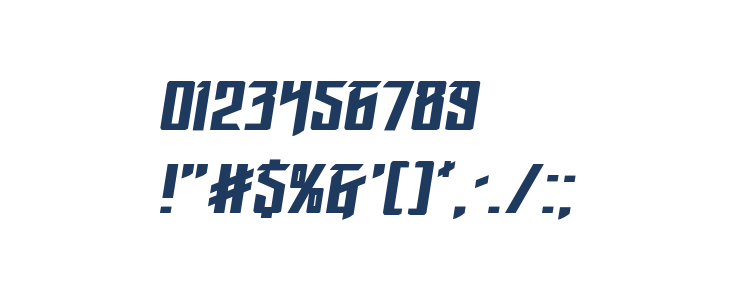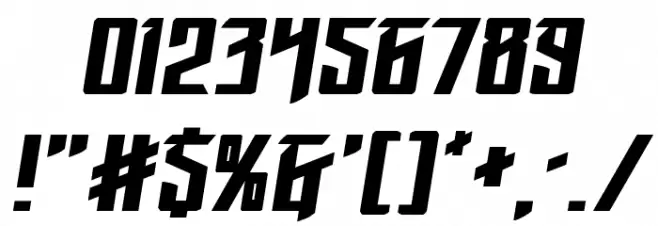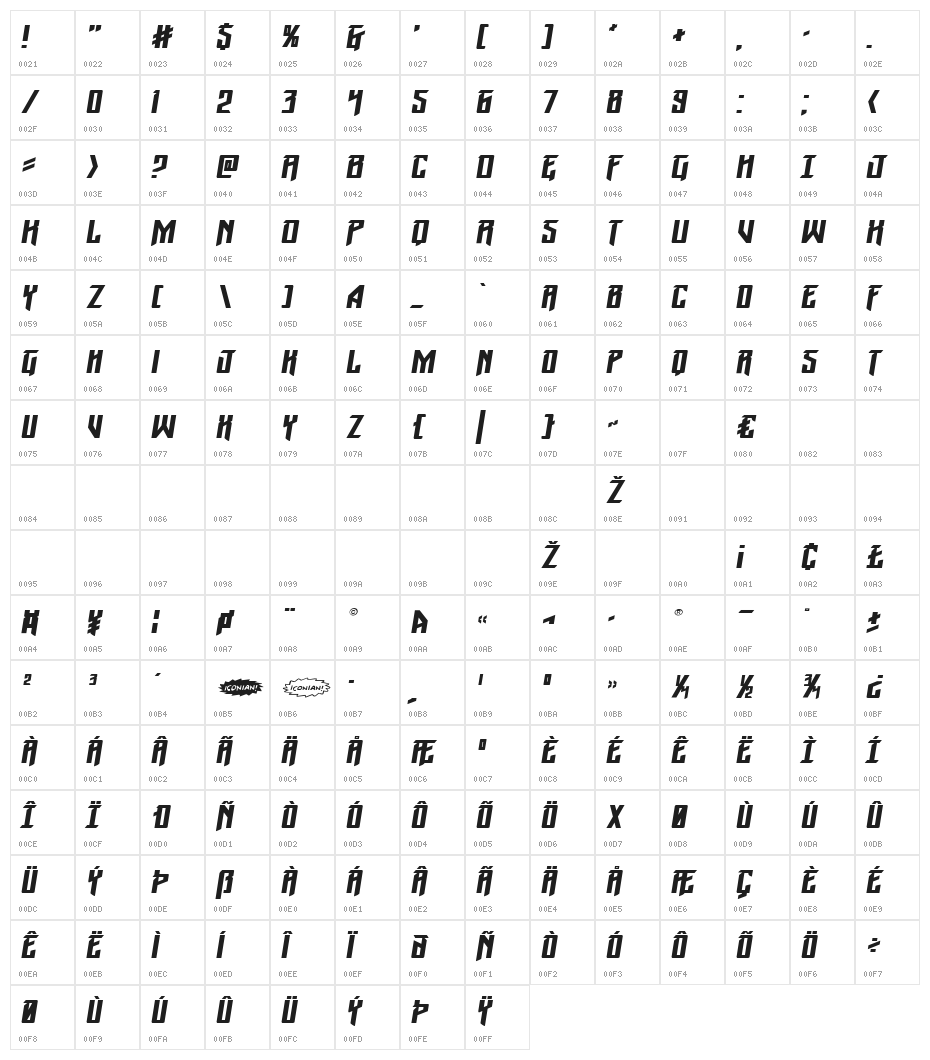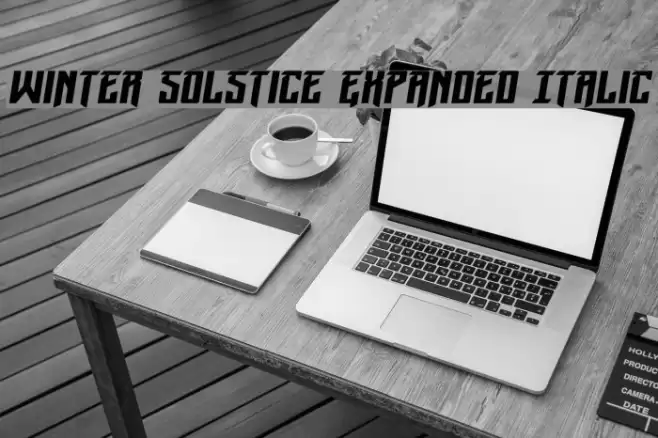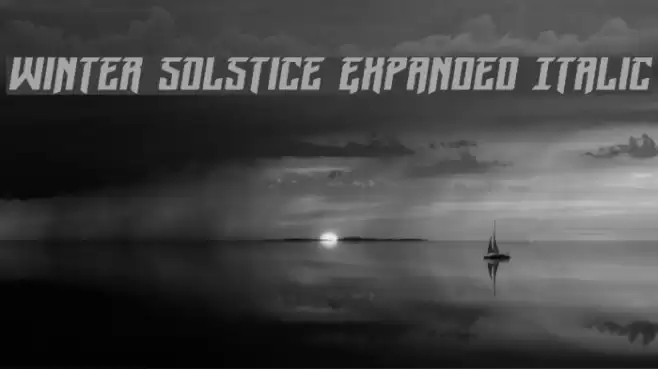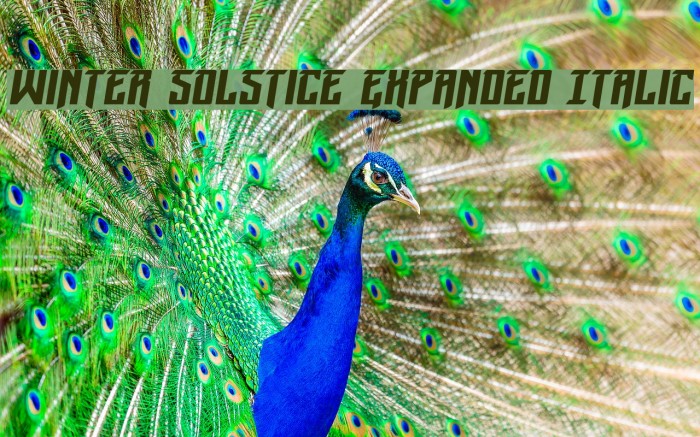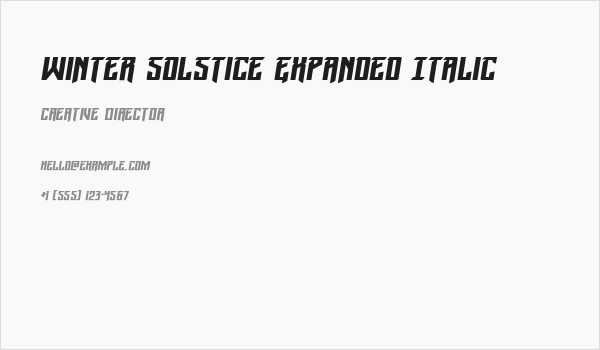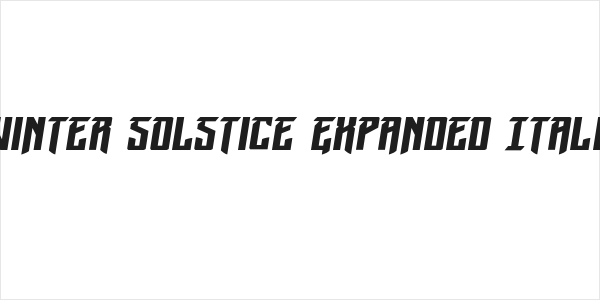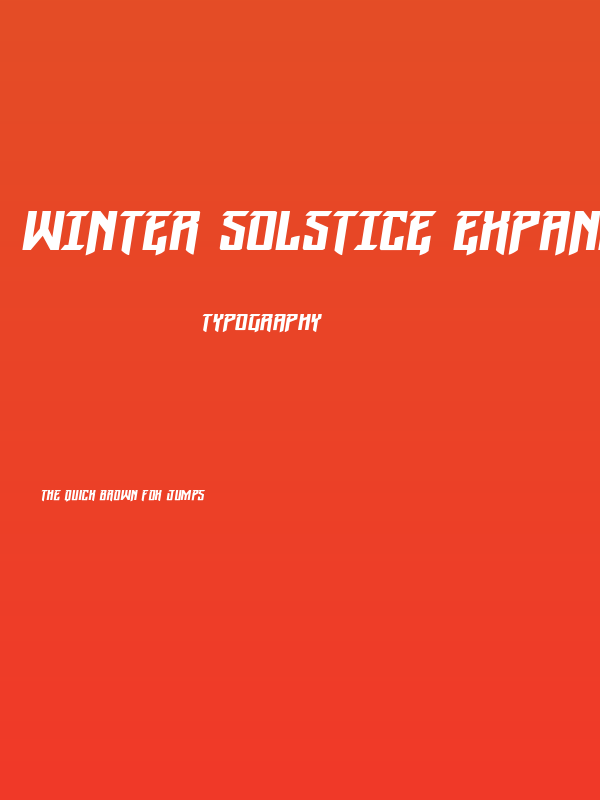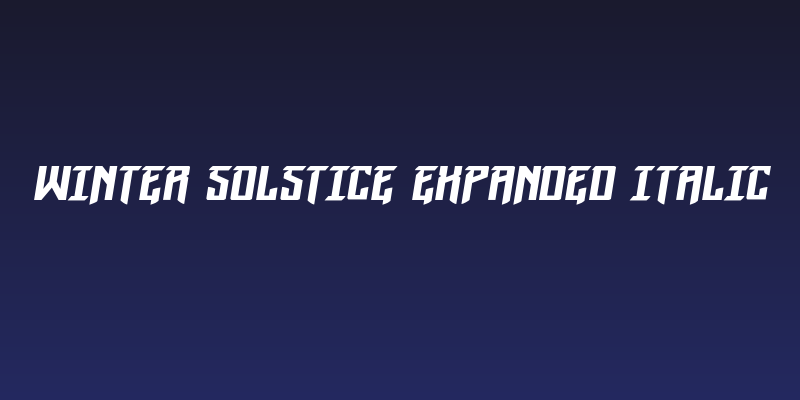
Winter Solstice Expanded Italic Font
Winter Solstice Expanded Italic Description
This font features a bold and dynamic style with sharp, angular edges and a distinct slant, giving it a sense of movement and energy. The expanded width of the characters enhances its presence, making it ideal for attention-grabbing headlines. The uppercase letters are particularly striking, with a futuristic and edgy appearance. The numbers and special characters maintain the same bold and angular design, ensuring consistency throughout the typeface. This font's unique style makes it suitable for projects that require a modern and impactful look.
Proposed ProjectsIdeal for sports branding, video game titles, posters, and dynamic advertising campaigns.